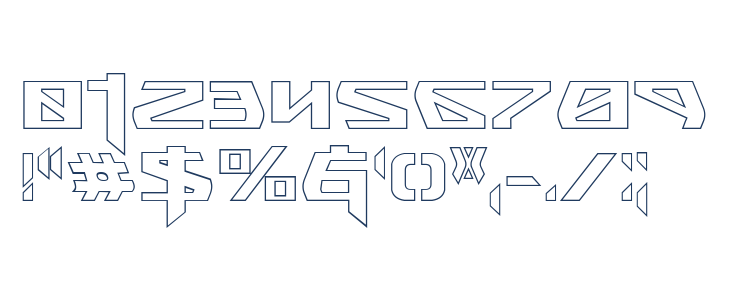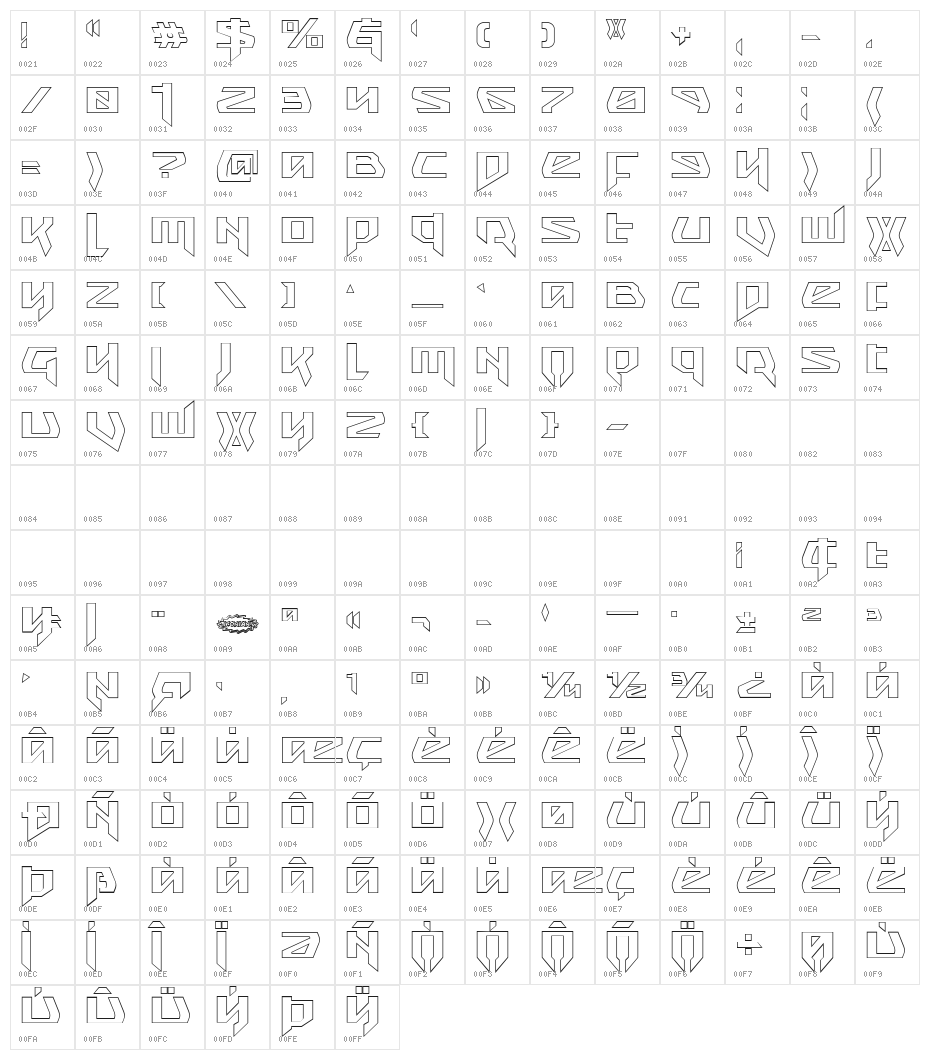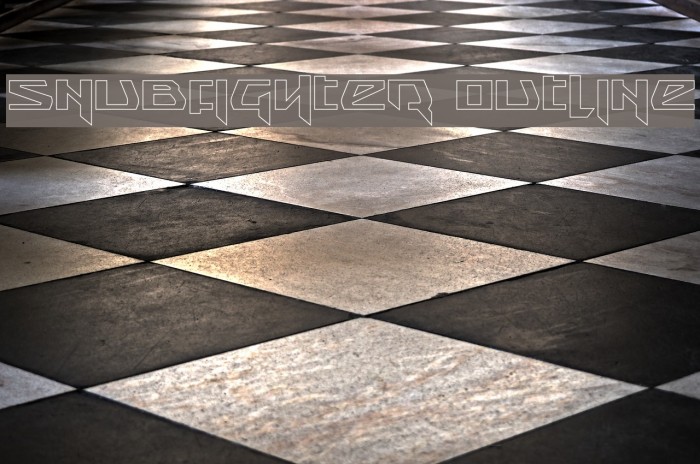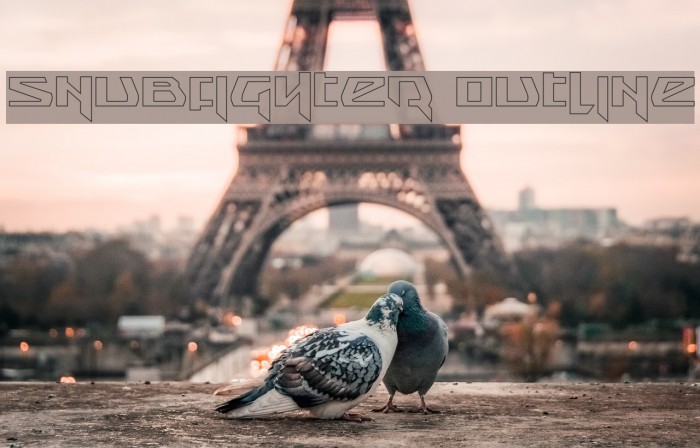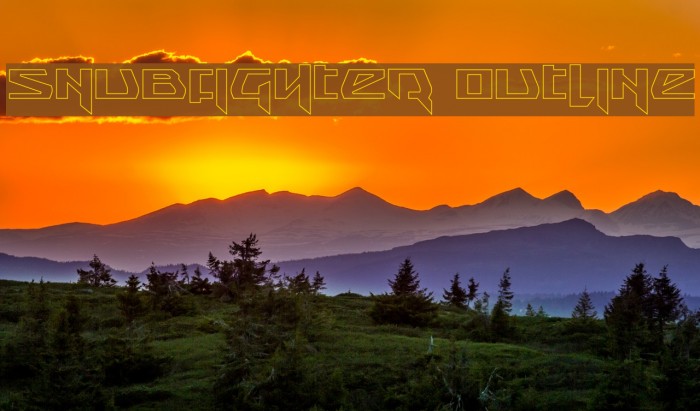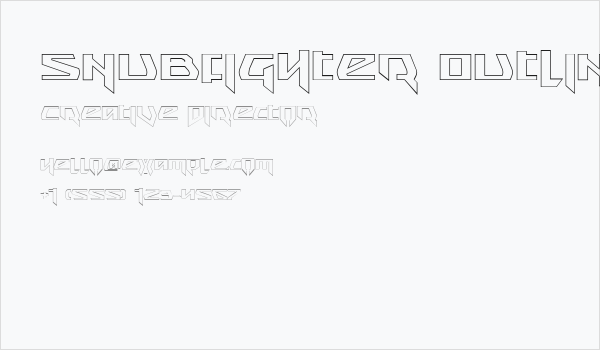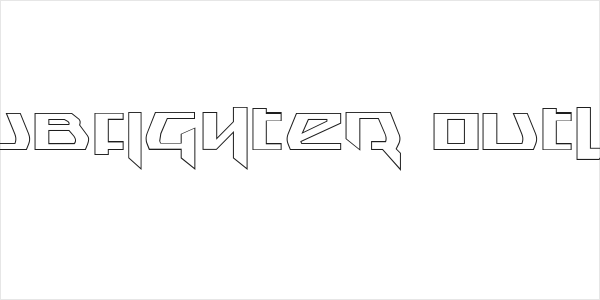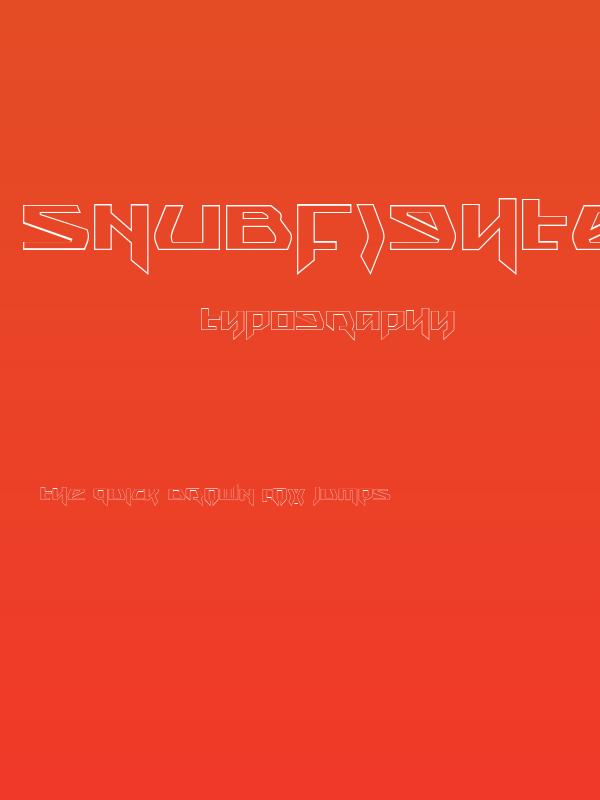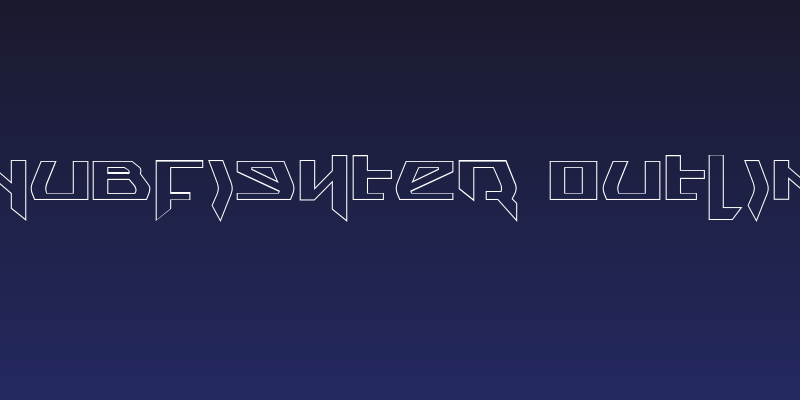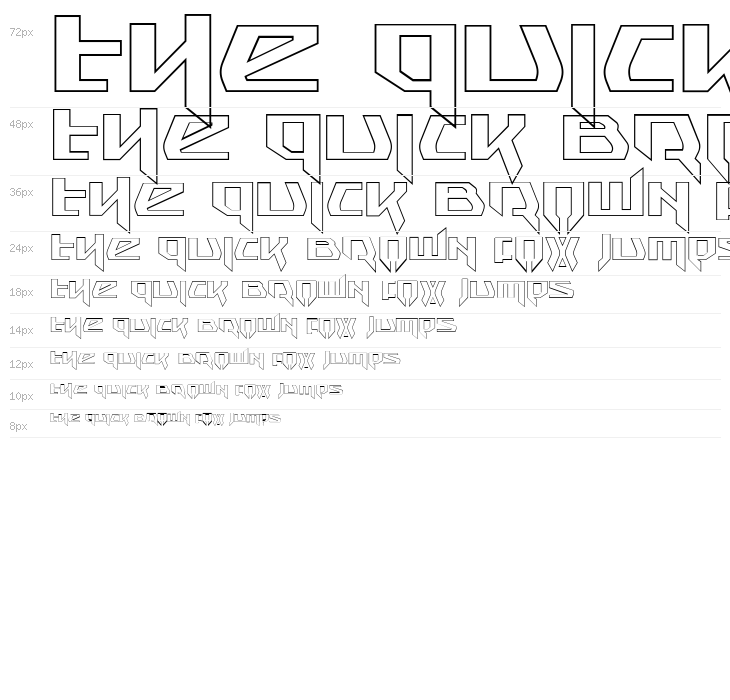
Snubfighter Outline Font
Snubfighter Outline Description
This font features a bold, angular design with a futuristic and geometric aesthetic. The characters are outlined, giving them a hollow appearance that emphasizes their sharp, pointed edges and dynamic shapes. The uppercase and lowercase letters share a consistent style, with a strong emphasis on diagonal lines and sharp corners. The numerals and special characters maintain this cohesive design, contributing to the font's overall edgy and modern look. The font's unique style makes it stand out, suitable for projects that require a strong visual impact.